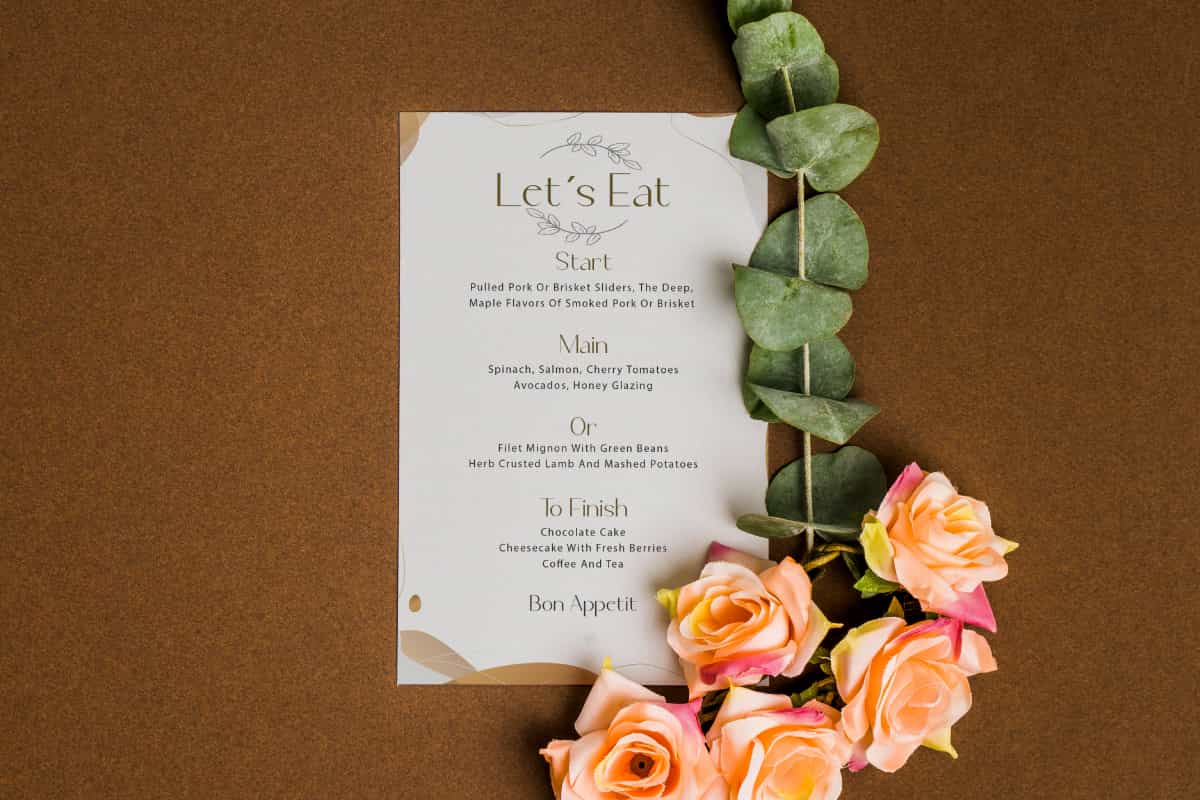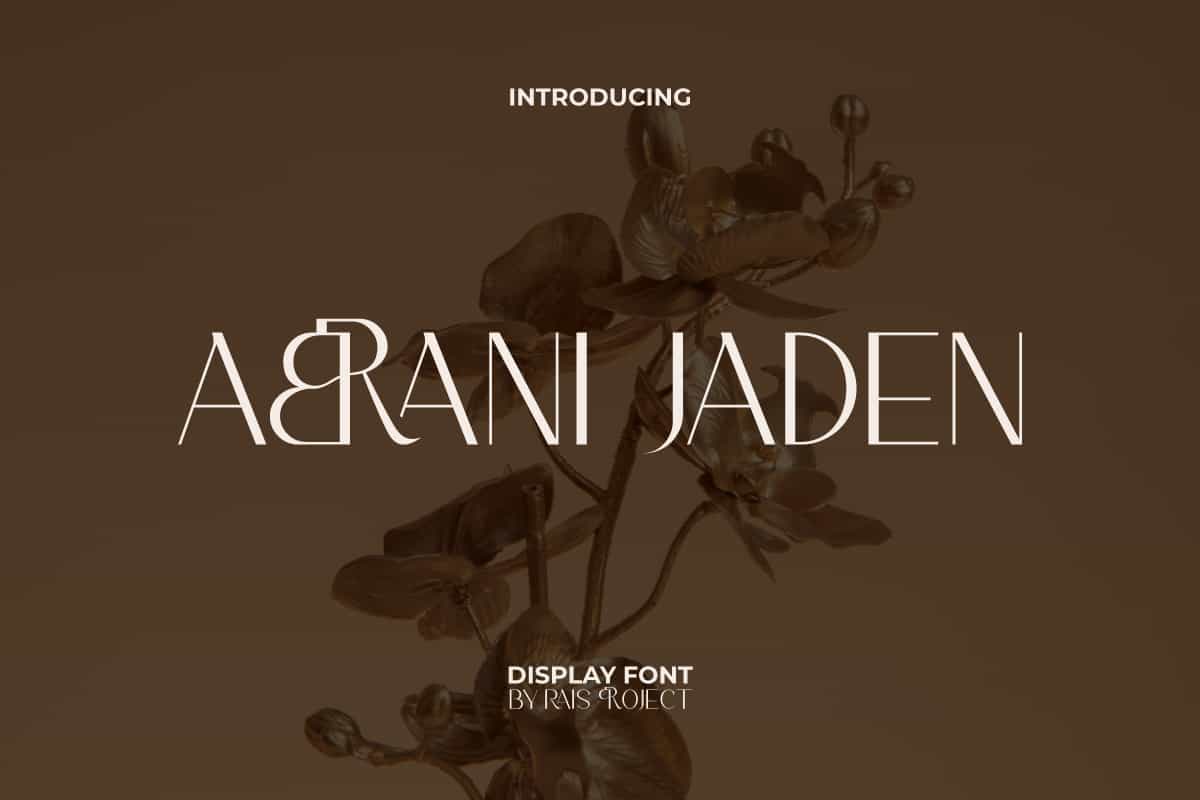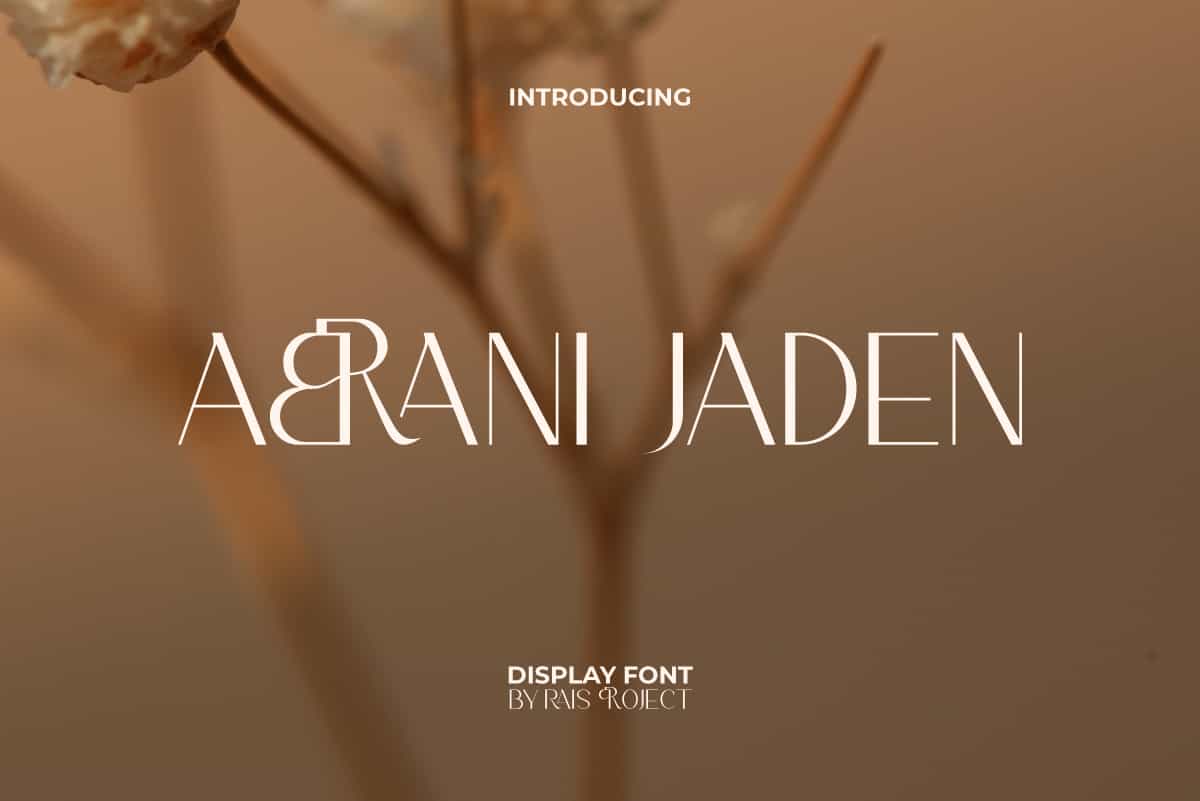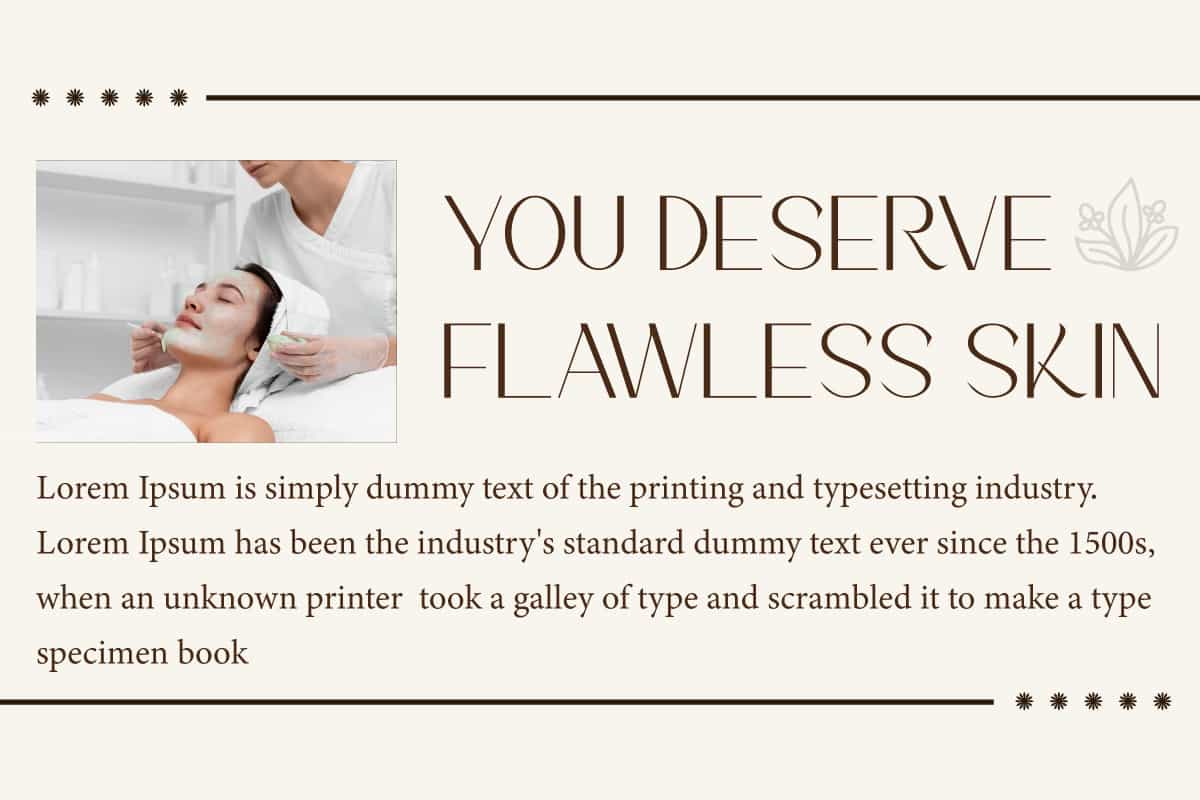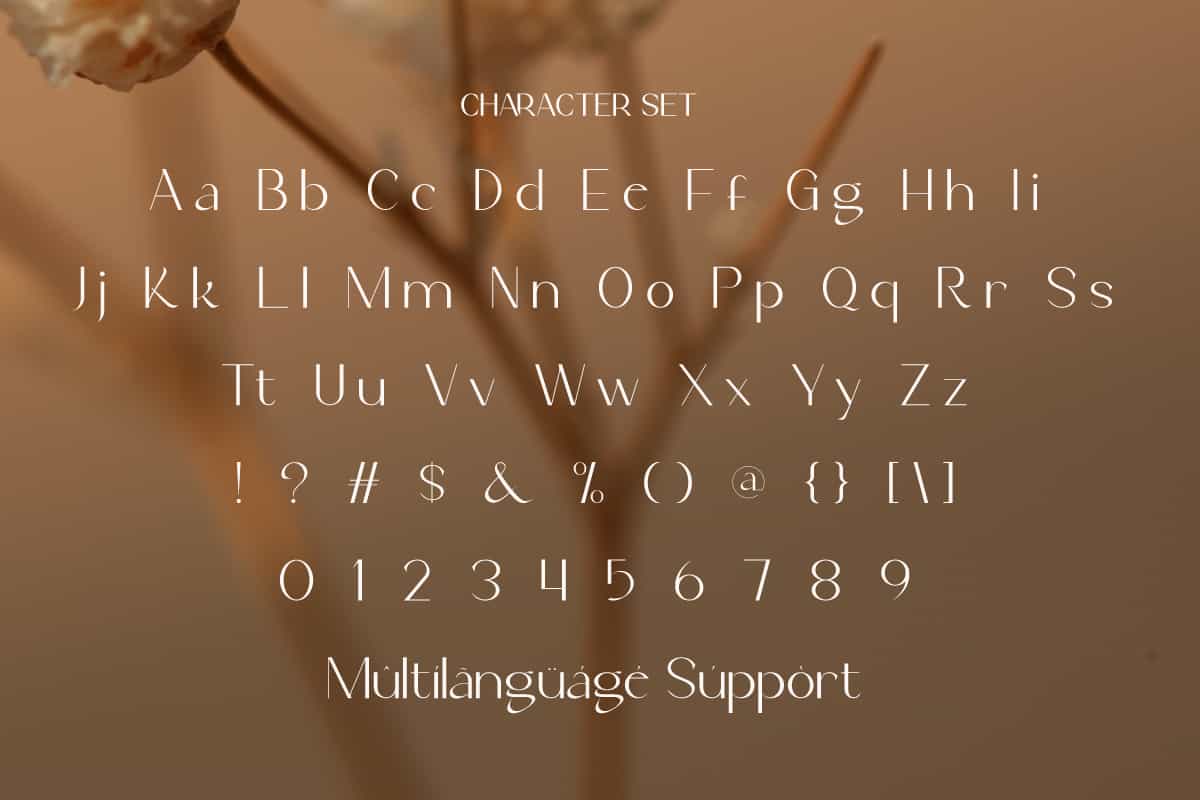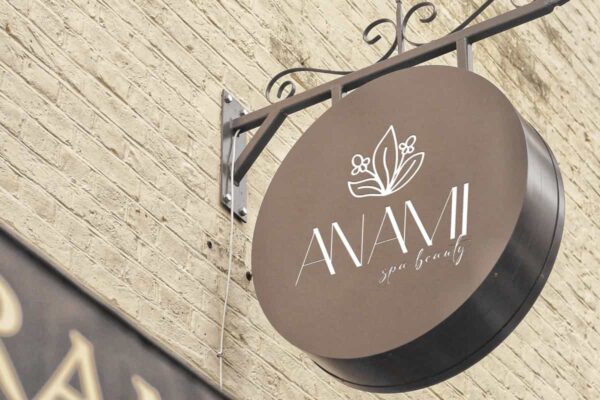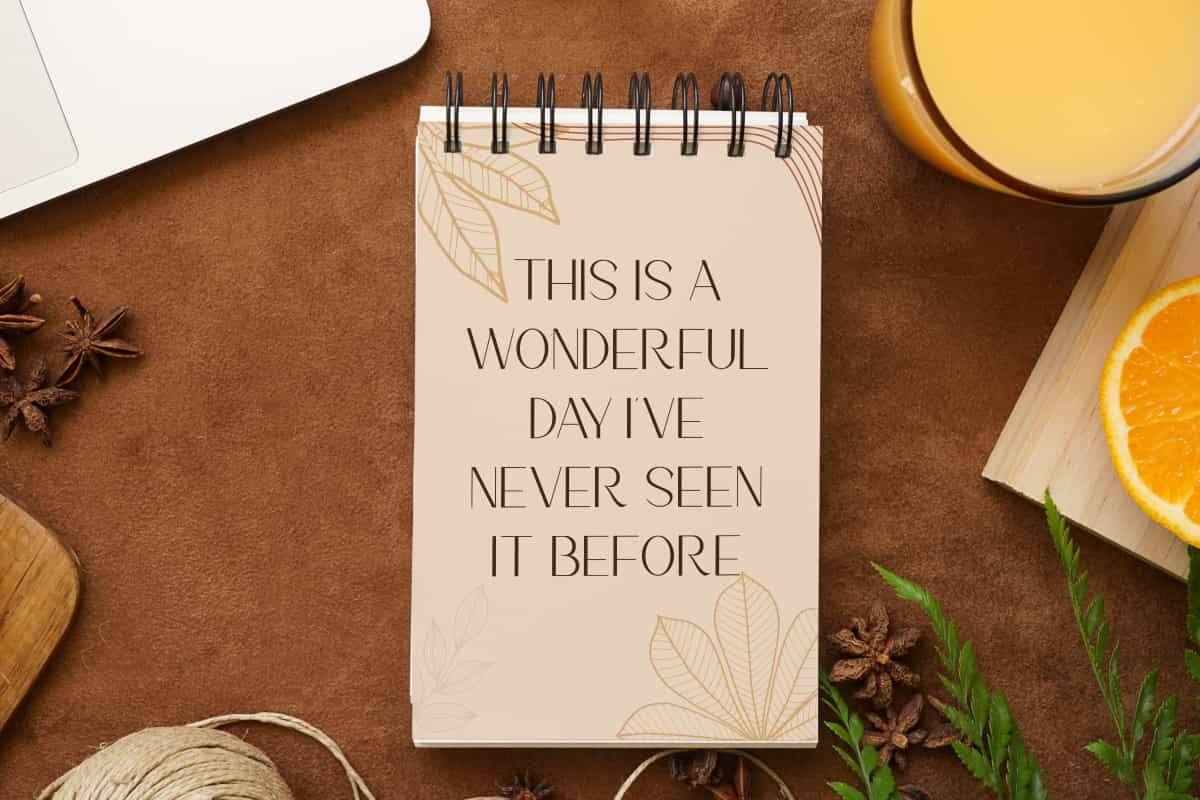
Abrani Jaden Font
Abrani Jaden Font is a minimalist and modern sans serif display font that will make your designs looks exclusive!
Abrani Jaden Font is a fine sans serif font that can add an expensive impression, by RaisProject. With a clean minimalist style, this font can give a classy look to every designs. It will look good for invitation, signage, label, stationery, brand image, cover, custom design, poster, product packaging, quotes, web, and more!
Abrani Jaden Font includes a full set of Uppercase and Lowercase Letters, Numerals, Punctuation, Symbol, and Ligature character. This modern font will be suitable for various industries, such as fashion, accessories and jewelry, advertisement, event or wedding organizer, florist, homeware, perfume, photography, printing, publishing, real estate, etc.